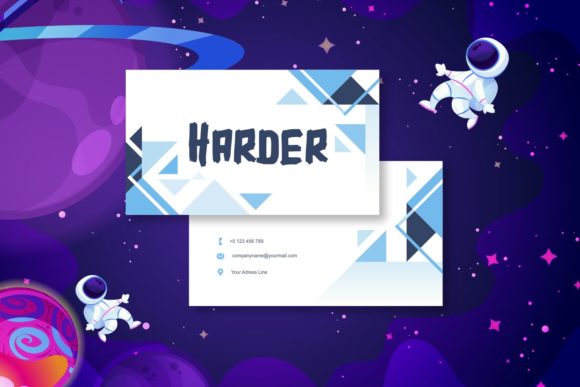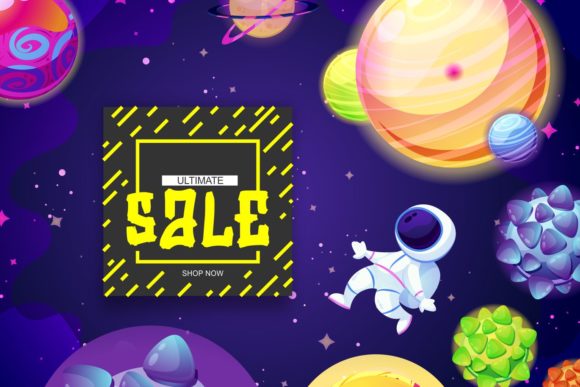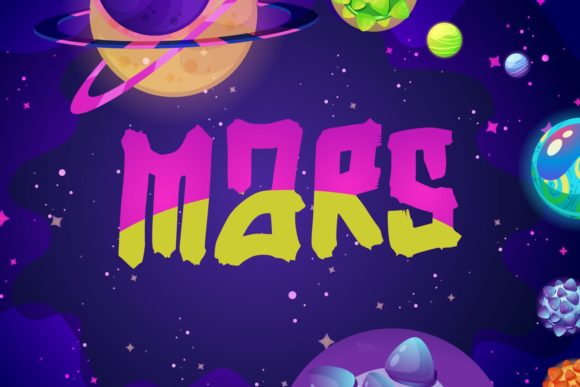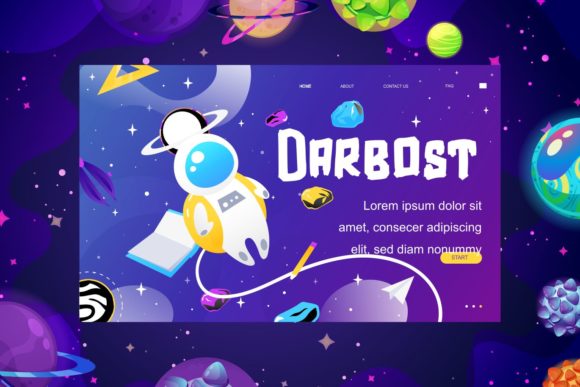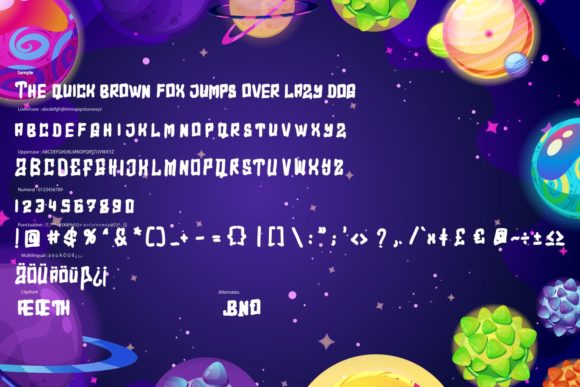
Introduction to Overfly Font
Have you ever stared at a blank canvas, waiting for inspiration to strike? The blank page can be intimidating, but sometimes it’s the perfect opportunity to experiment with new ideas. For designers, finding the right font can be a game-changer, setting the tone for a project’s overall aesthetic and energy.
That’s where the Overfly Font comes in – a bold and chunky handwritten font that exudes a cheerful energy. Its unique style is sure to add a touch of personality to any creative project, from social media graphics to print materials. With its transparent background and high-quality design, the Overfly Font is a valuable resource for designers looking to elevate their work.
Key Features of Overfly Font
- Unique and stylish design ideal for creative projects and branding
- Perfect for use in logos, headings, and body text, with a large character set and font size ranging from 8 to 1000 points
- Designed to be versatile and adaptable for various design needs and creative projects
Honest Review: Overfly Font
I recently came across the Overfly Font and was excited to dive in and see what it had to offer. As a designer, I’m always on the lookout for high-quality design resources to elevate my creative projects.
The Overfly Font is a great addition to any design toolkit, offering a unique and elegant style that’s perfect for a variety of applications. One of the standout features is its transparent background, making it easy to use in any design scenario.
- ✨ High-quality design with a unique and elegant style
- ✨ Transparent background for easy use in any design scenario
- ⚠️ Limited character set, which may not be suitable for longer texts
- ⚠️ May require additional styling to achieve desired look in certain design scenarios
Overall, I’m impressed with the Overfly Font and would definitely recommend it as a valuable design resource. With its high-quality design and transparent background, it’s perfect for any creative project that needs a touch of elegance.
To get the most out of the Overfly Font, experiment with different font sizes, colors, and effects. Use the font’s transparency feature to create a layered effect, and combine it with other design elements for a unique look.
The Overfly Font is perfect for creative projects, such as logos, brochures, and social media graphics. Its high-quality design and transparent background make it ideal for use in a variety of design applications.